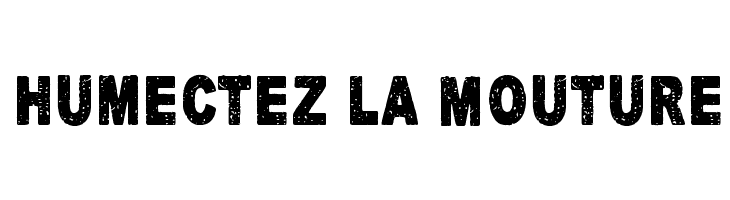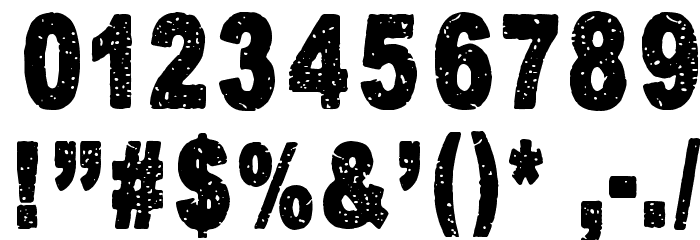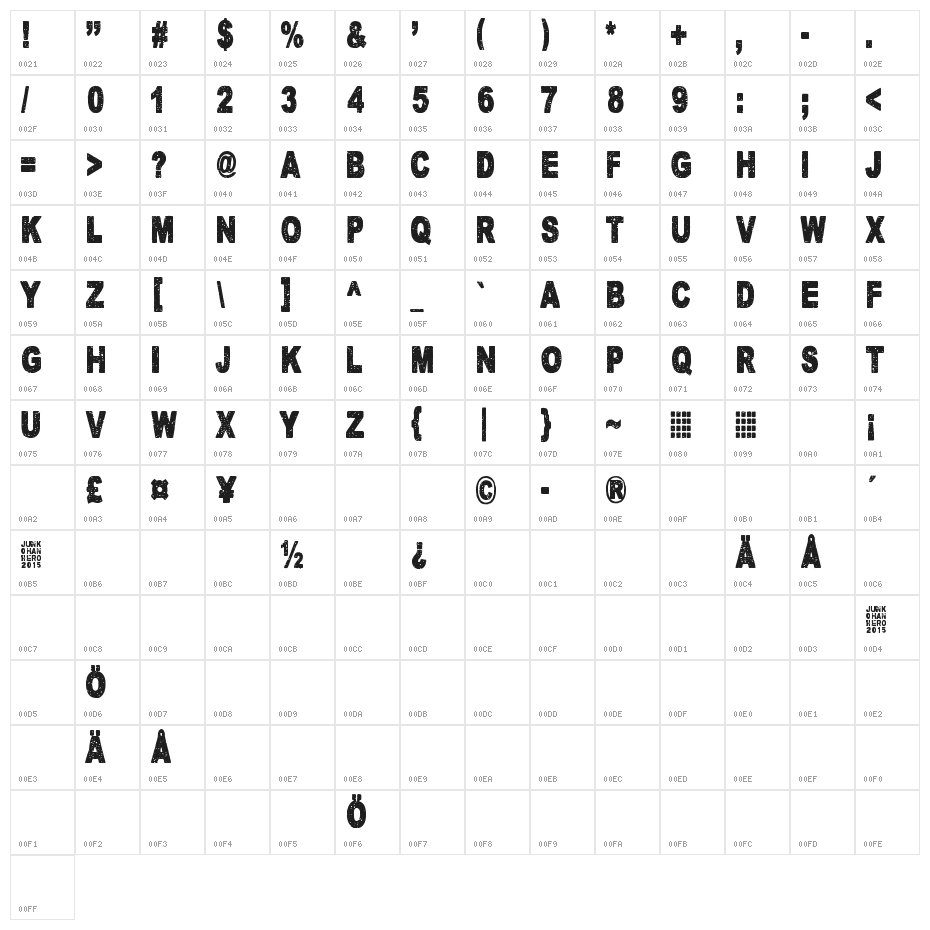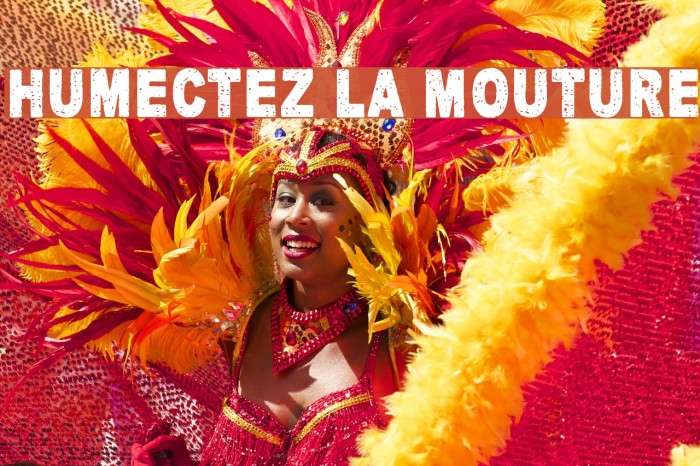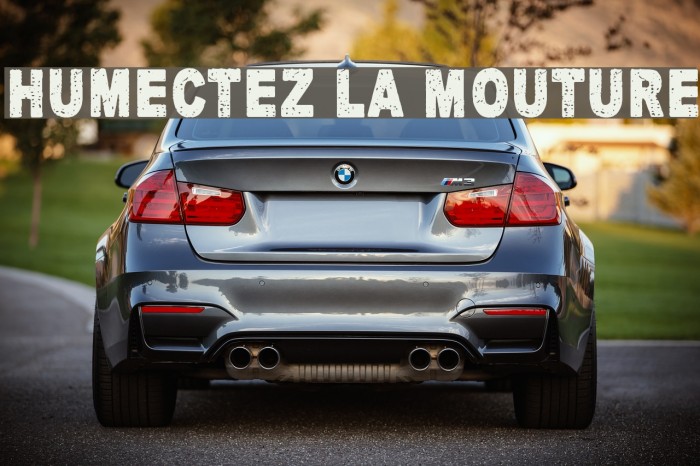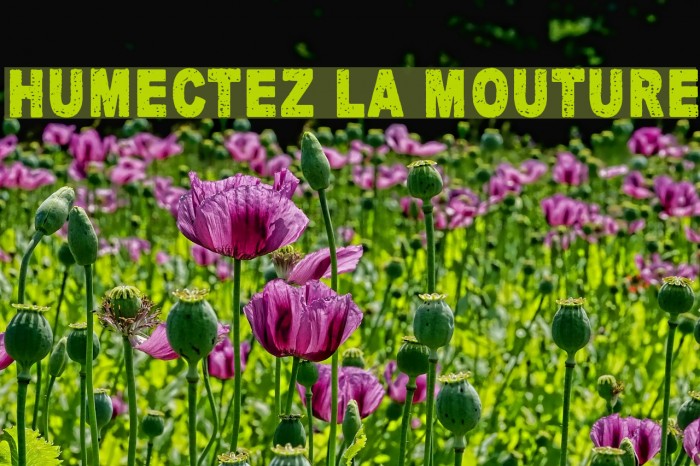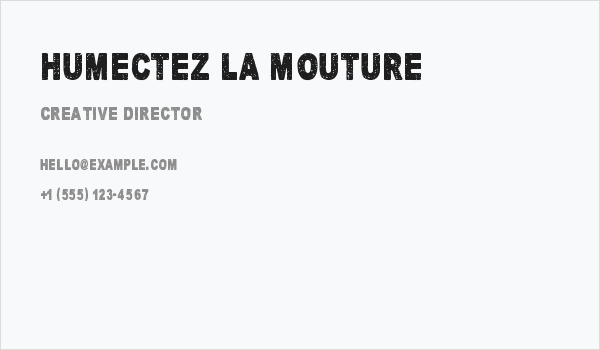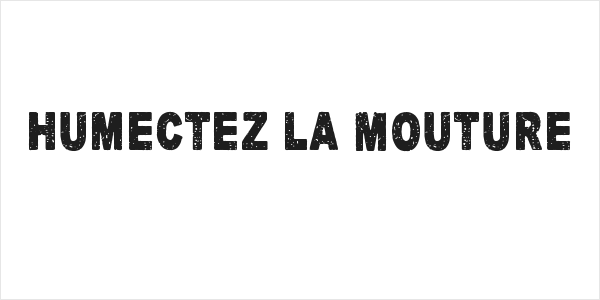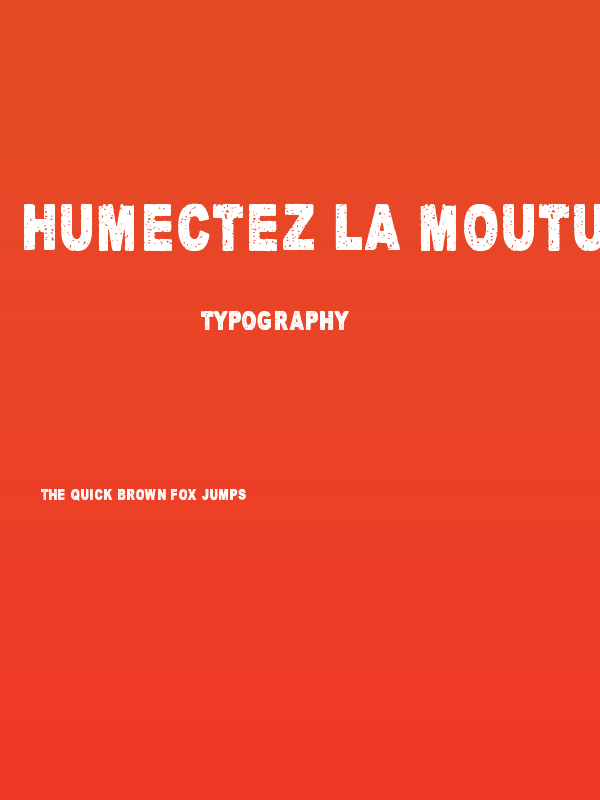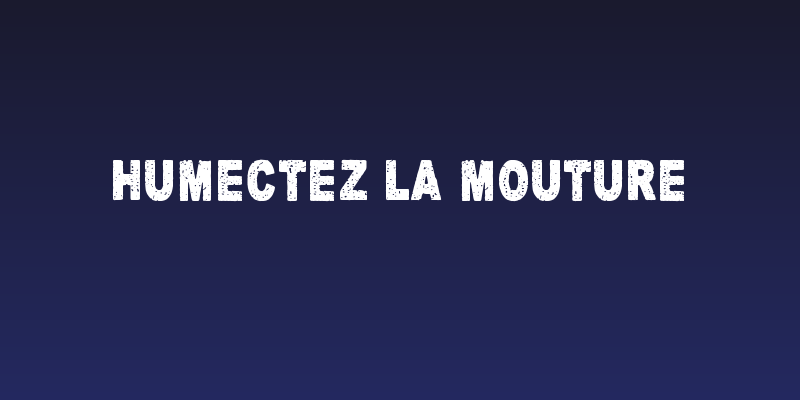
Humectez La Mouture Font
Humectez La Mouture Description
This font features a bold, distressed style with a textured appearance that gives it a rugged and vintage feel. The characters are uniformly bold, with a consistent thickness throughout, and the distressed texture adds a unique, worn-out look that suggests a sense of history and character. The uppercase letters are prominent and commanding, making them ideal for attention-grabbing headlines or titles. The numbers and special characters maintain the same distressed aesthetic, ensuring a cohesive look across all text elements. This font's distinctive style makes it perfect for projects that require a touch of nostalgia or a gritty, urban vibe.
| Proposed Projects | Ideal for vintage posters, album covers, branding for rustic or industrial-themed businesses, and any design needing a bold, textured look. |